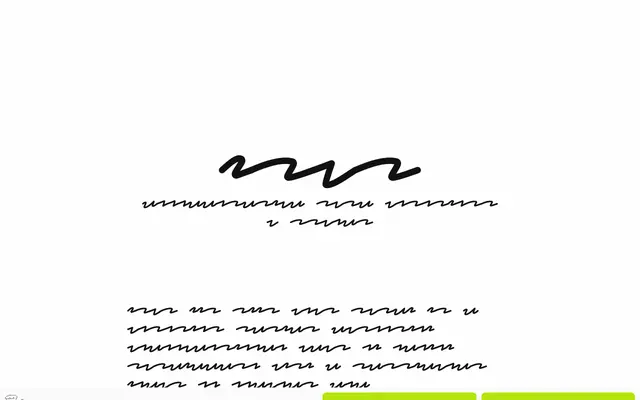
ITYT
Not Your Type · Multiple collaborative workshop participants · 2023
A growing collection of six display typefaces produced through collaborative workshops exploring modular and unconventional type design processes.
Each style in the family is the product of a distinct workshop session, with individual glyphs drawn by different participants ranging from design students to art fair visitors. The modular approach and shared authorship make each style a document of collective making rather than a singular design vision. Available free for personal, educational and small commercial use under the foundry's own 'Be Nice' licence.
Each style is produced through collaborative workshops using modular and unconventional methods, with each glyph drawn by a different participant; the results are experimental and display-oriented rather than fitting any conventional typographic category.